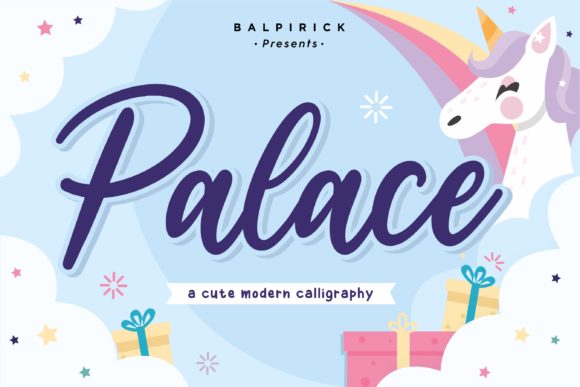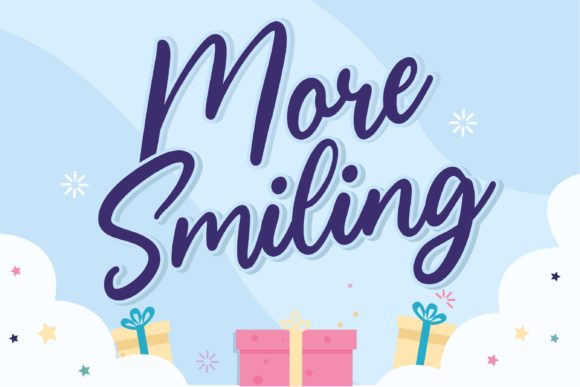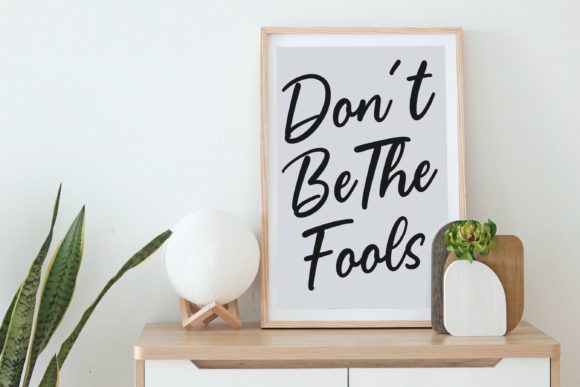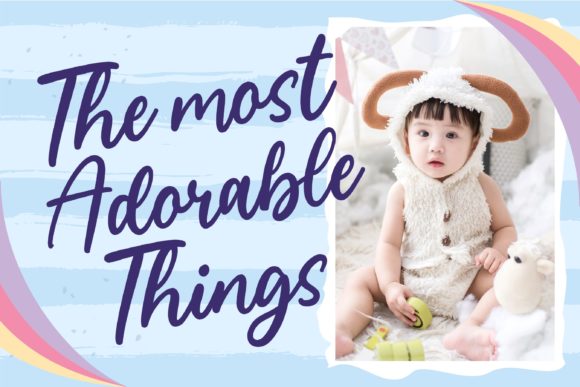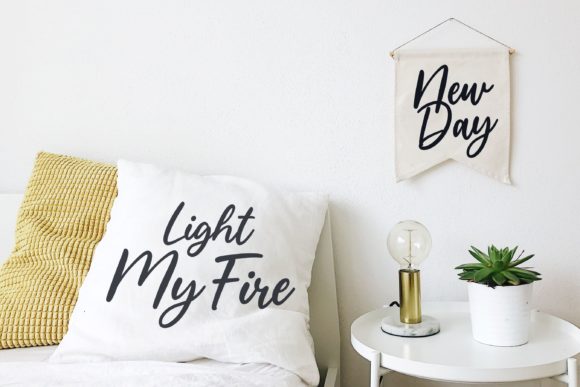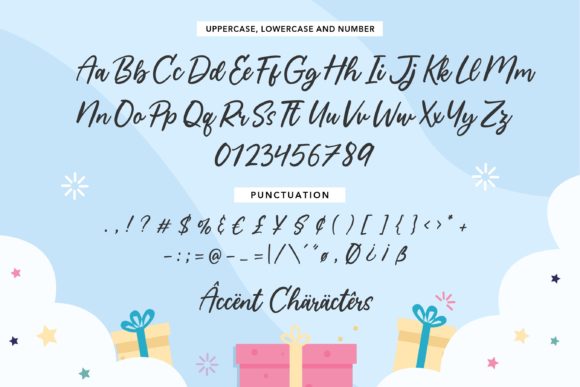
Palace Font
About Palace Font
Palace is a cute and casual handwritten font with an incredibly friendly feel. Whether you’re looking for fonts for Instagram or calligraphy scripts for DIY projects, this font will turn any creative idea into a true piece of art!